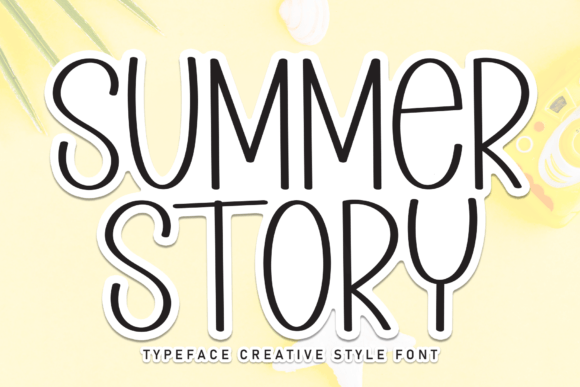
Welcome to the world of Summer Story Font, a script font family that captures the essence of sun-drenched days, lazy afternoons, and the allure of handwritten letters. Created by the talented andikastudio, this font oozes charm and uniqueness, making it the perfect choice for adding a touch of personal flair to your creative projects.
Step into a realm where words dance with elegance and grace. Crafted with meticulous attention to detail, the Summer Story Font family boasts a captivating array of styles, each designed to evoke a distinct emotion and bring your ideas to life. Whether you seek a whimsical touch for your social media posts, a touch of sophistication for your wedding invitations, or a dash of creativity for your product packaging, Summer Story Font has it all.
Transport yourself to a world where creativity knows no bounds, where every letter, every word, every design tells a story. Summer Story Font's versatile nature allows it to seamlessly blend with a symphony of visual elements, making it the ideal choice for wall displays, logos, advertisements, and more. Unleash your imagination and let your designs bloom with the beauty of Summer Story Font.
But wait, there's more! Summer Story Font comes encoded with PUA Character – a special feature that allows you to access the entire font without any additional design software. It's like having a magic key that unlocks a treasure trove of creative opportunities.
So why settle for ordinary when you can have extraordinary? Embark on a creative adventure with Summer Story Font and let your designs shine with newfound brilliance. Experience the joy of creating with a font that speaks to your soul and ignites your imagination. Let Summer Story Font be your muse, your creative companion, and your ticket to a world of endless possibilities.